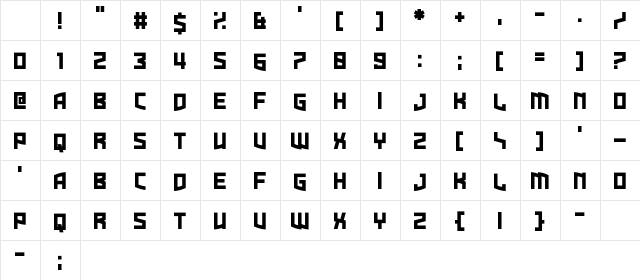
Complete Dire Gramme Regular glyph index. Displaying only characters natively supported by Dire Gramme Regular font.
Dire Gramme is a composed and adaptable typeface that performs quietly and consistently across a wide range of design contexts.